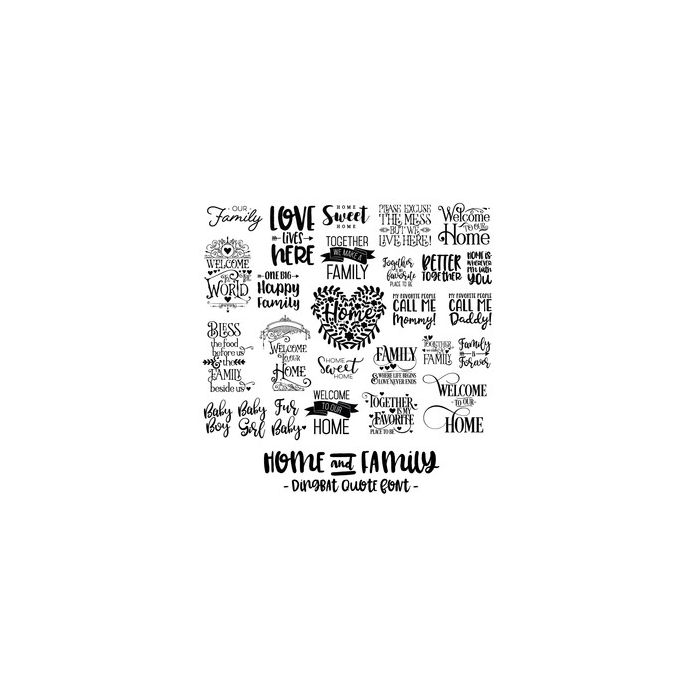
Home and Family Quote Dingbat Font. Includes 26 home and family quotes, perfect for planners, wall art, word art, vinyl, home decor, journaling, scrapbooking, gifts and more!. All are assigned to an upper case letter starting with 'A' or can be accessed via glyphs. For more design ideas, coordinating designs & products and inspiration, please visit my blog http://www.sarahhurleyblog.com